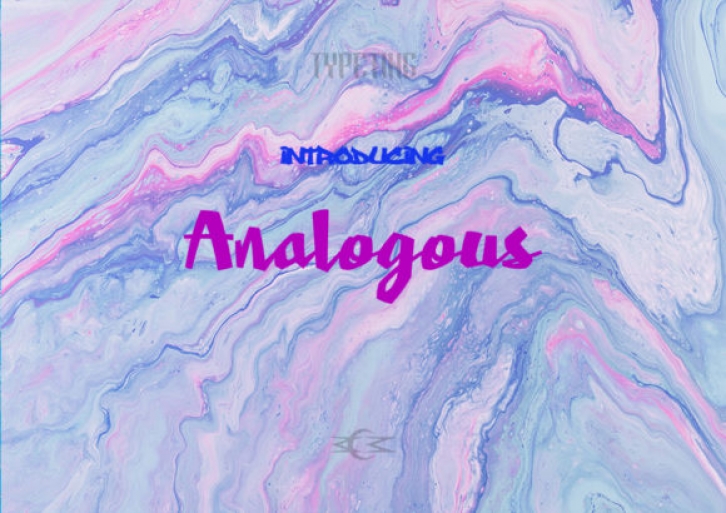
Analogous is a cute and quirky display font. It will add an incredibly joyful touch to your designs. Add this beautiful display font to each of your creative ideas and notice how it makes them stand out!